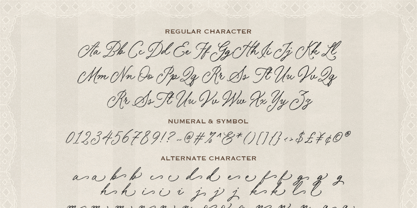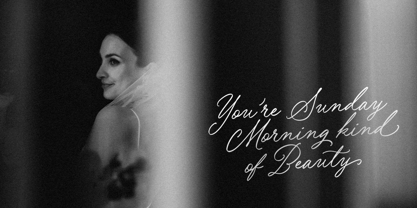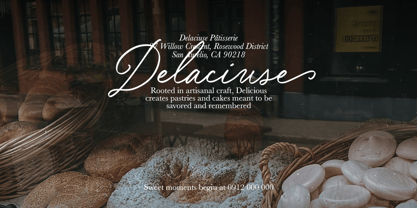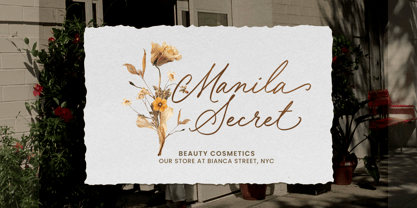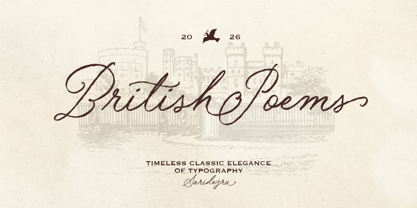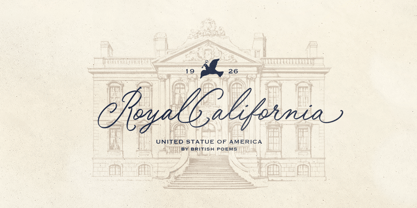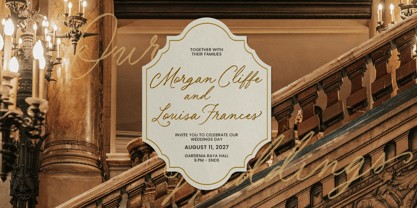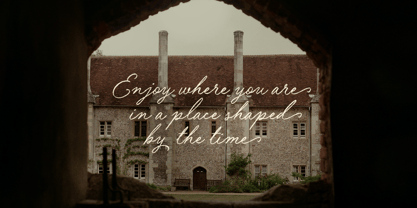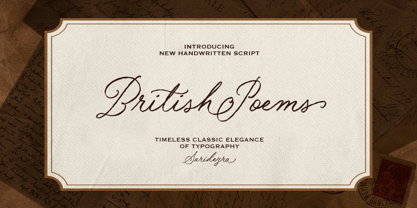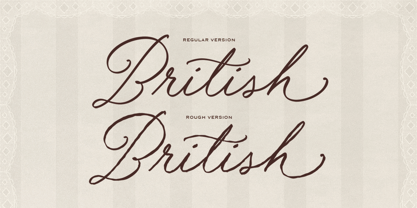
British Poems
by Sarid Ezra
The British Poems Font Family was designed by Sarid Ezra and published by Sarid Ezra. British Poems contains 2 styles and family package options. More about this family
British Poems is a handwritten script with old and nostalgia looks. Comes with regular and rough version that you can choose to match your project. Regular version for clean and elegant looks, and rough version for raw and naturally handwritten looks. This font also have alternates that will make your project looks stunning. You can use this script for any purposes, such as wedding invitation, signature, logo, quotes, and branding. British Poems also support multi language.